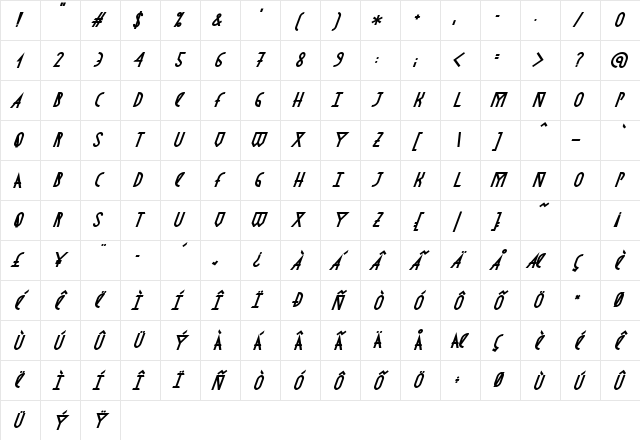
AstronmicaBoldItalic Regular Free Font
Foundry: Xerographer Fonts
Designer: Max Infeld - Xerographer Fonts
Design Context for AstronmicaBoldItalic
AstronmicaBoldItalic is a composed and adaptable typeface that performs quietly and consistently across a wide range of design contexts. The slanted form adds forward momentum and visual energy. Its bold stroke weight gives it real presence on the page.
Pro Tip: Use AstronmicaBoldItalic for emphasis, pull quotes, and subheadings where its slanted energy can add rhythm to the layout.